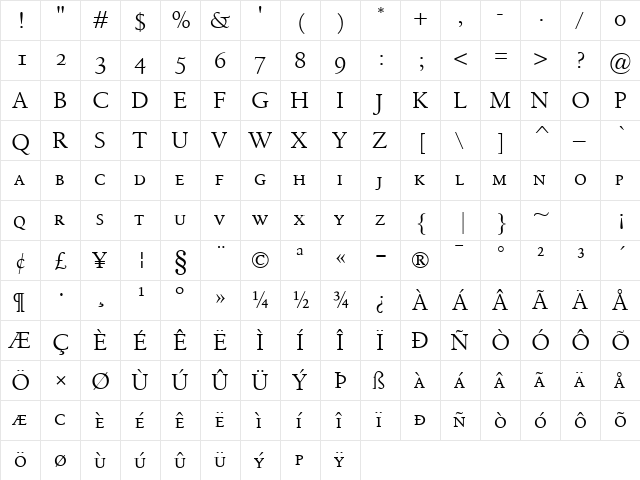
Birka SmallCaps Regular
Design Context for Birka SmallCaps Typeface
Birka SmallCaps offers clean, dependable letterforms without strong stylistic allegiance, making it a practical choice for designers who need flexibility.